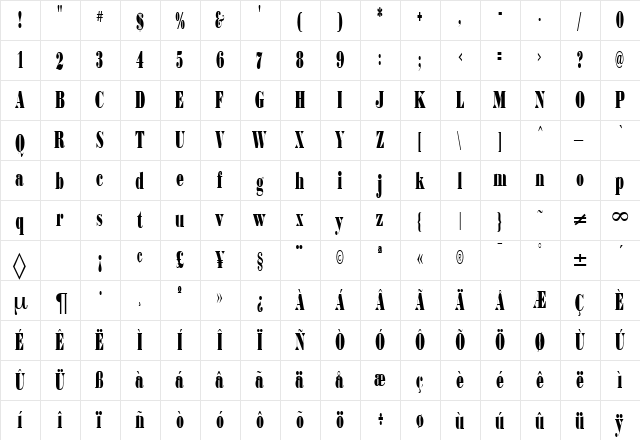
BodoniCondensedUltra Regular Font Preview
BodoniCondensedUltra Regular
Design Context for BodoniCondensedUltra Typeface
BodoniCondensedUltra offers clean, dependable letterforms without strong stylistic allegiance, making it a practical choice for designers who need flexibility. Its narrow stance lets it pack a punch even in space-constrained designs.